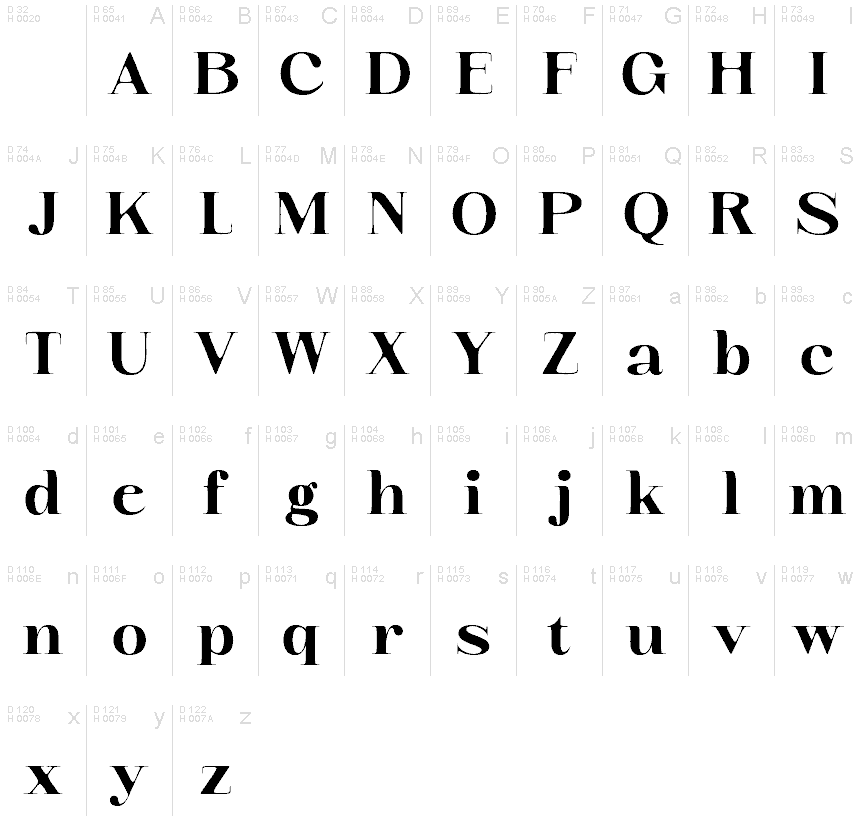
CS Albert Drawn font by Craft Supply Co. combines modern elegance with traditional charm. This expanded width serif typeface offers clear, sophisticated texts that instantly adorn every project and give them brand new meanings, allowing them to still hold onto a classic flair while maintaining an original presence.
An essential tool for branding projects and designs that include packaging and labels for cosmetics or food items. Its refined letters can appear on the pages of magazines, newspapers, journals, minimalist posters, textbooks and other publications or online platforms like websites. Party invitations and personalized greeting cards will also greatly benefit from its look!